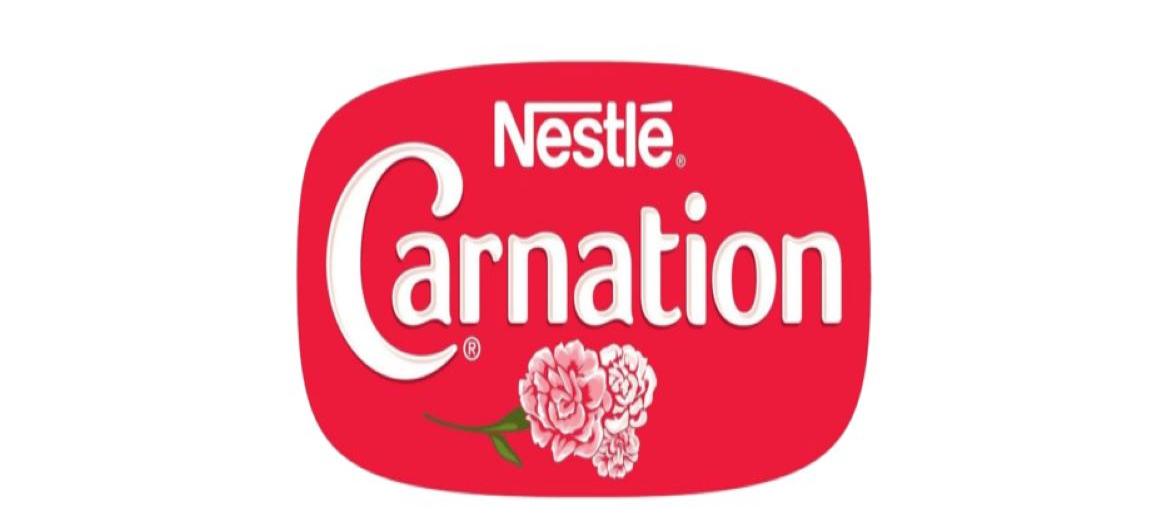
Carnation Font
The Carnation Font exudes a soft, classic charm that mirrors the warmth and reliability of this beloved dairy brand. Its smooth, rounded letterforms and gentle elegance make it feel timeless and approachable. Balancing tradition with simplicity, the font evokes the comfort of homemade desserts and family gatherings while remaining clean and versatile for modern designs.
About Carnation
Carnation is a historic dairy brand founded in 1899 and now part of Nestlé. Known for its evaporated milk, condensed milk, and other dairy products, Carnation has become a trusted household name for over a century. Its products are widely used in baking, cooking, and creating comforting family meals, consistently delivering quality and reliability. The brand evokes nostalgia, warmth, and wholesome goodness in kitchens worldwide. With a commitment to tradition and excellence, Carnation has earned the trust of generations, making it a staple ingredient in countless recipes and a symbol of care and culinary heritage.